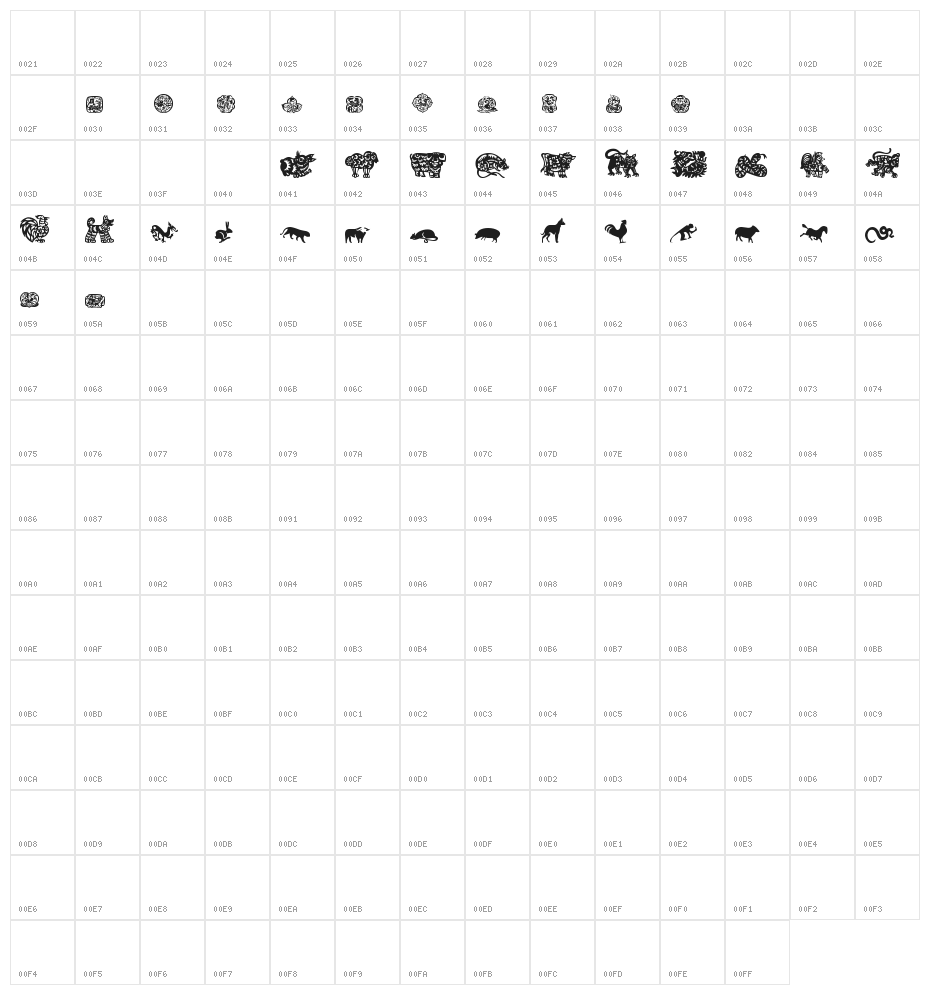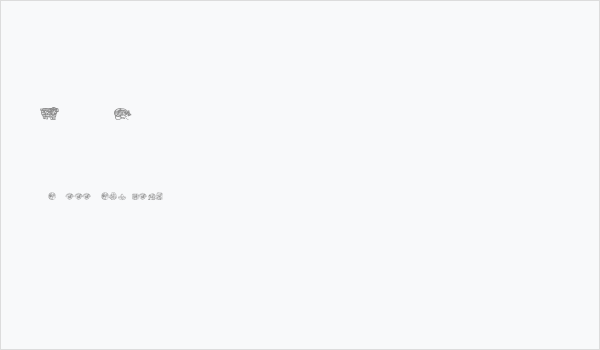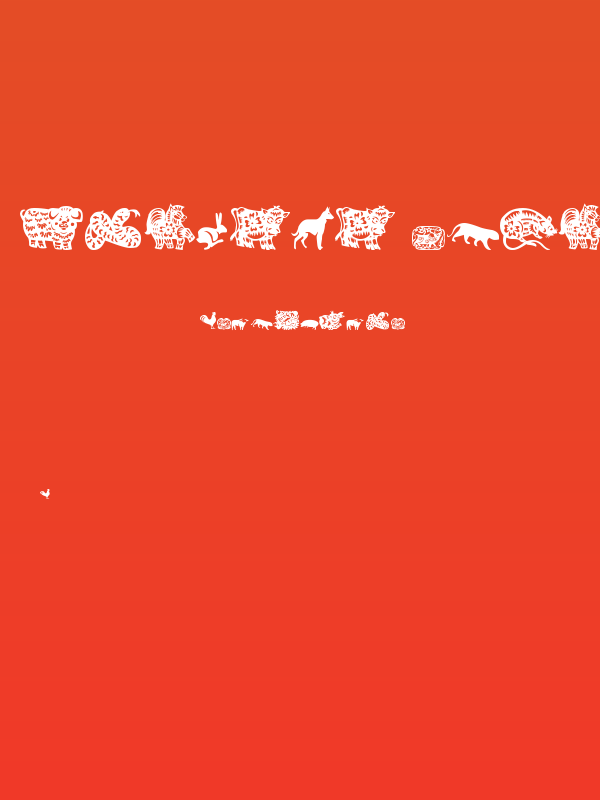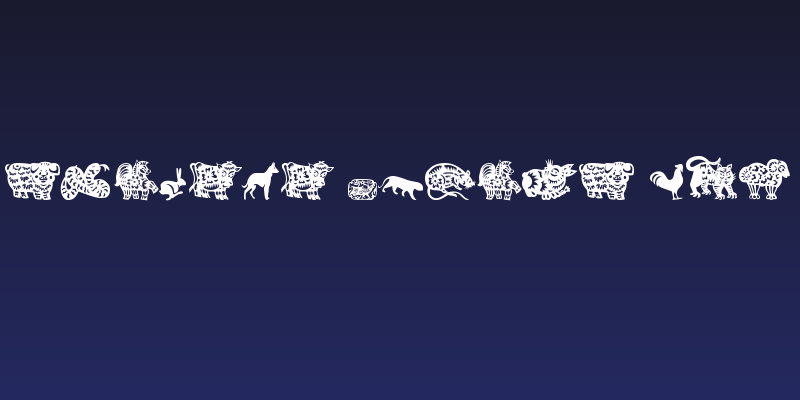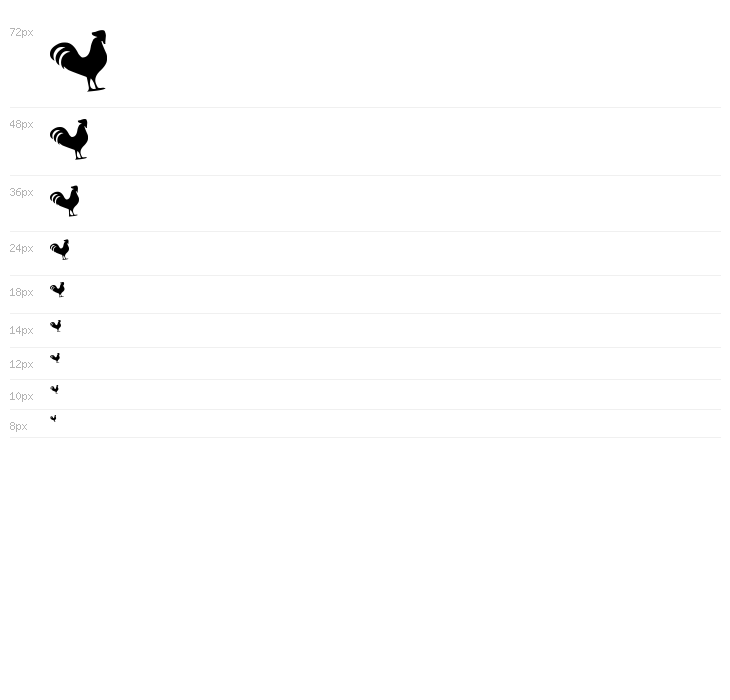
chinese zodiac tfb Font
chinese zodiac tfb Description
This decorative font is inspired by the Chinese zodiac, featuring intricate and artistic representations of the twelve zodiac animals. Each character is designed with elaborate details, capturing the essence of traditional Chinese art. The font includes stylized depictions of the rat, ox, tiger, rabbit, dragon, snake, horse, goat, monkey, rooster, dog, and pig. The characters are bold and visually striking, making them suitable for projects that require a cultural or thematic emphasis. The font's unique style is ideal for creative designs, adding a touch of elegance and cultural significance.
| Use Case | Logos, Posters, Artistic Projects |
| Proposed Projects | Ideal for cultural event posters, themed invitations, artistic projects, and educational materials about the Chinese zodiac. |